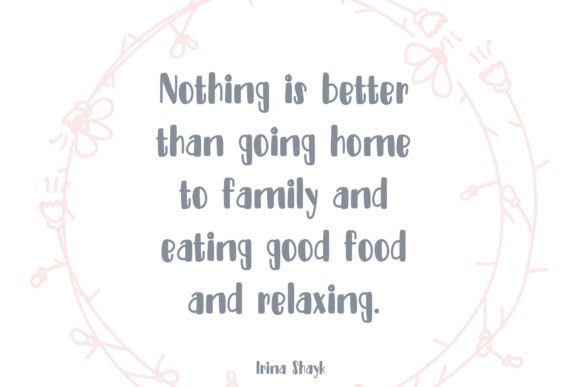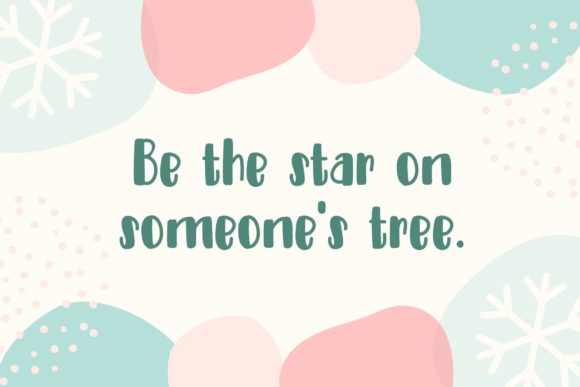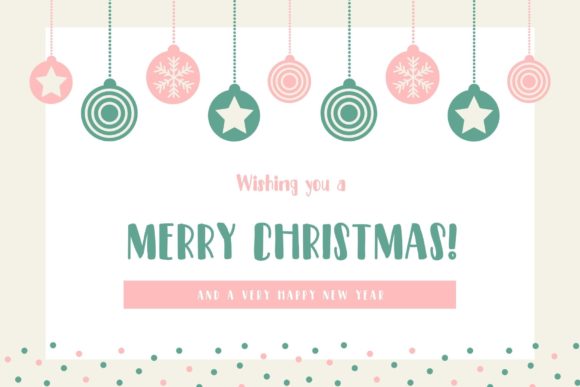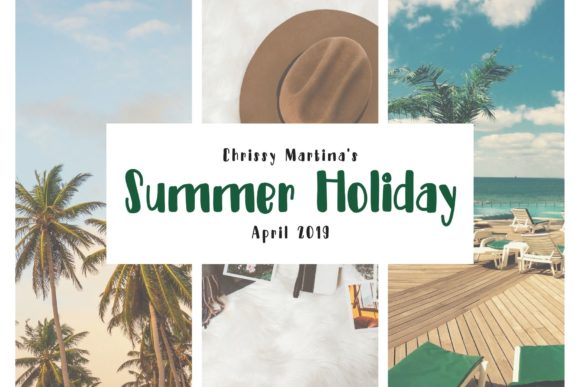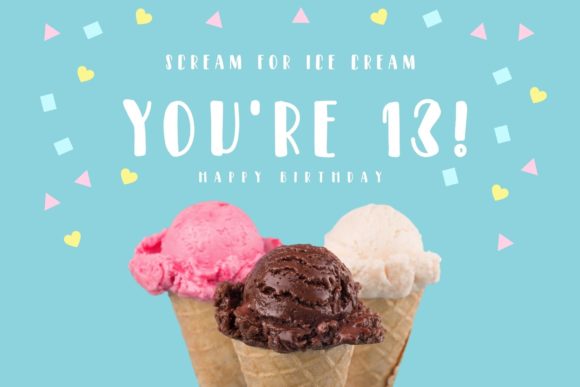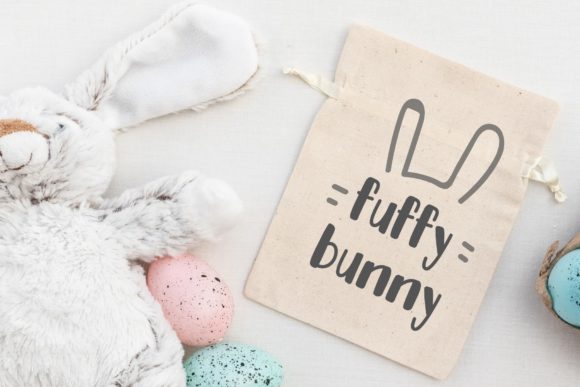
Introduction to Pawsome Father Font
Pawsome Father is a cheerful and cute handwritten font.
Fall in love with its incredibly versatile style and use it to create spectacular designs .
Key Features of Pawsome Father Font
Why Choose Pawsome Father Font?
Pawsome Father Font offers exceptional quality and versatility, making it a valuable addition to your design toolkit. Whether you’re creating for personal projects or commercial use, Pawsome Father Font delivers professional results.